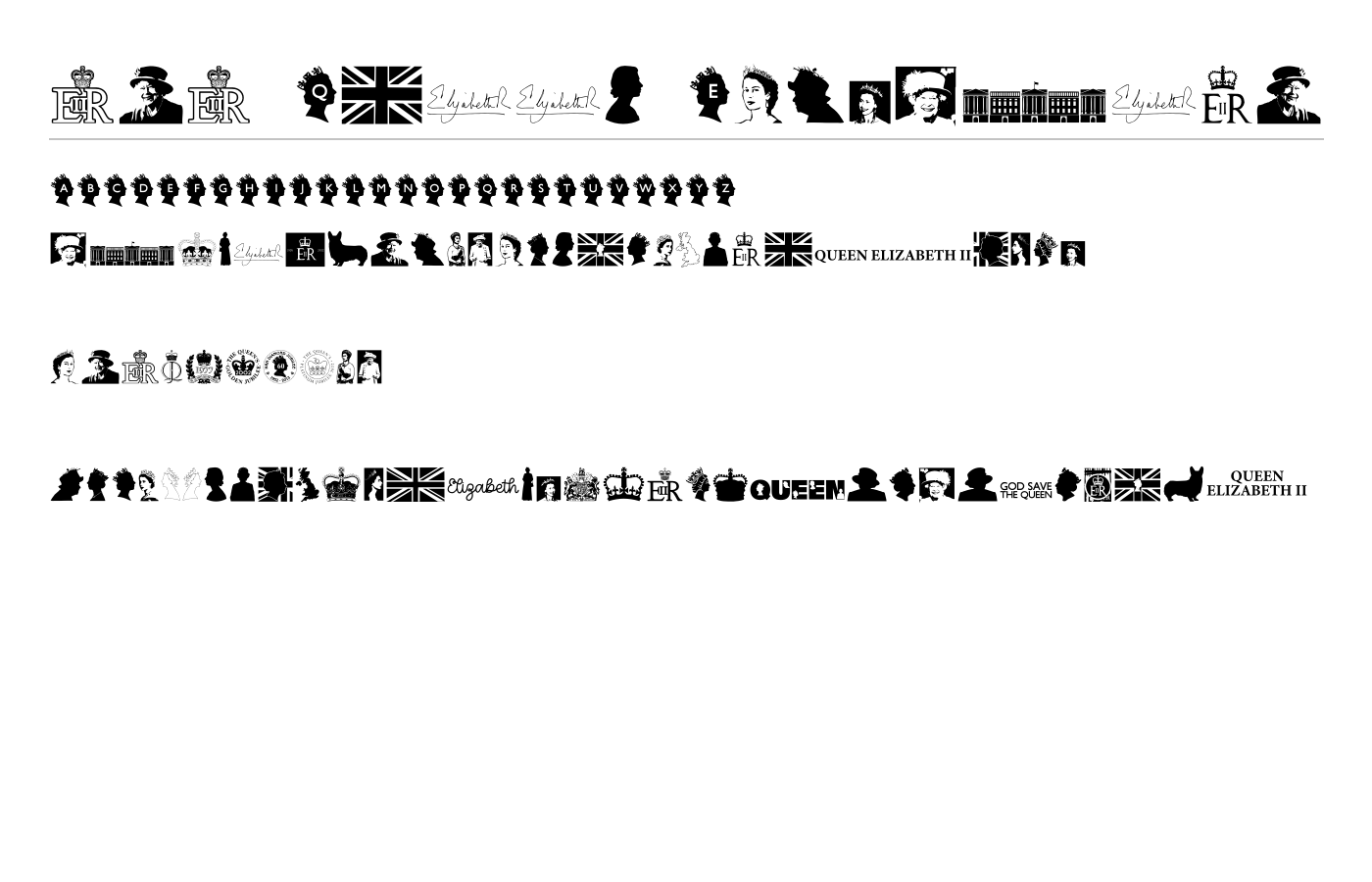
The 212 Queen Elizabeth font is a decorative dingbat style featuring iconic silhouettes and symbols associated with Queen Elizabeth II and British royalty. It includes detailed black-and-white portraits, crowns, flags, and other regal imagery rather than traditional letterforms, making it perfect for themed designs celebrating British heritage, royalty, or special commemorations. This font works best for creative projects like posters, invitations, or branding where a unique, historic, and formal royal touch is desired.
212 Queen Elizabeth Font
About 212 Queen Elizabeth Font
| Designer | Elizabeth McLain |